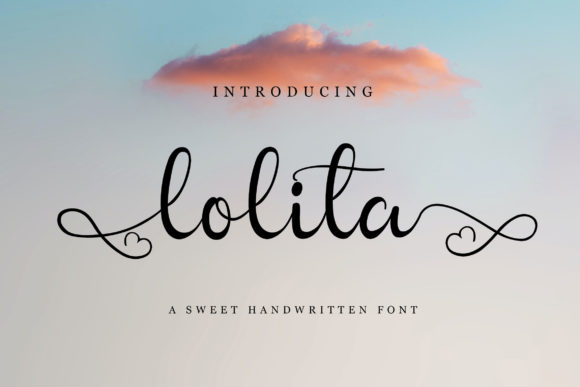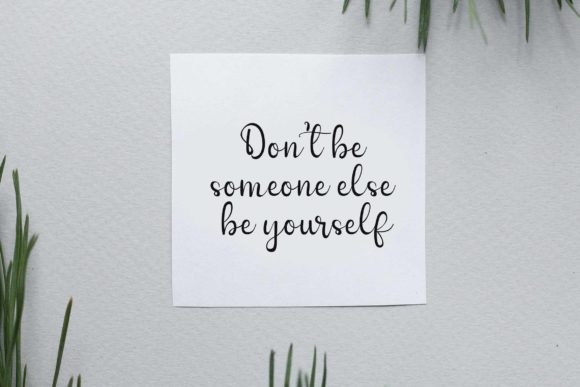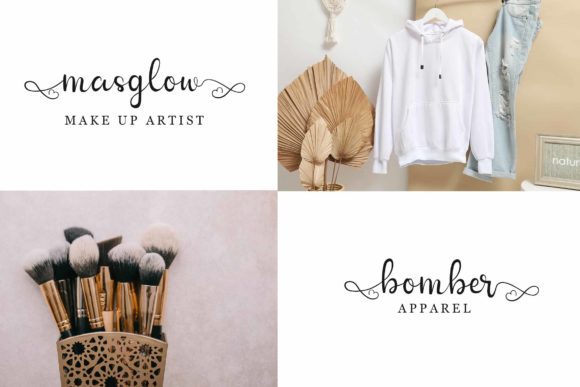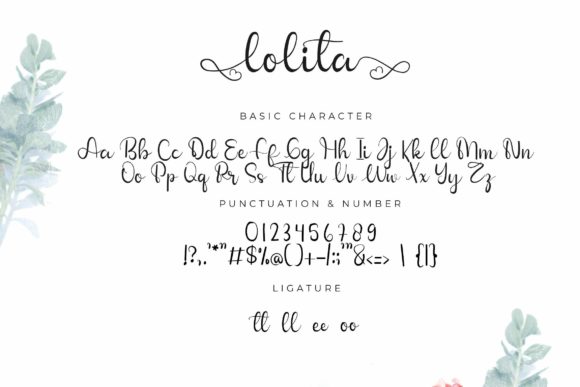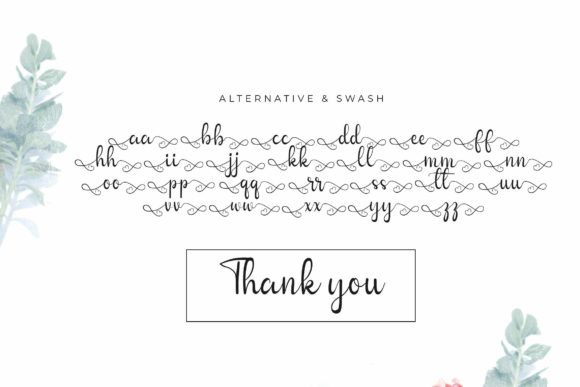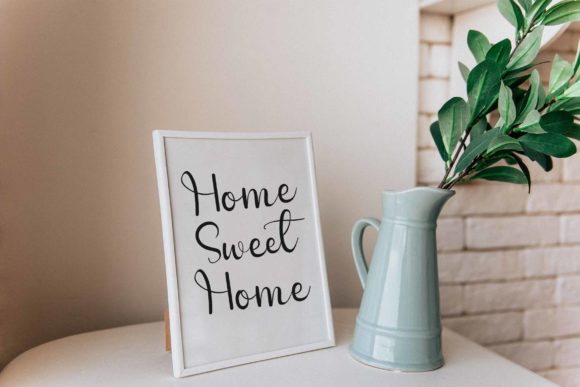
Lolita Font
About Lolita Font
Introducing “Lolita,” a lovely script font that showcases charming and playful characters, creating a whimsical dance along the baseline. Add this font to your most creative ideas, and observe how it makes them stand out with a touch of charm and personality. Notably, Lolita is PUA encoded, ensuring easy access to all glyphs and swashes for enhanced customization.
Lolita’s playful characters bring a delightful and lively quality to your text, making it a perfect addition to various creative projects. Whether applied to invitations, branding, social media posts, or any design endeavor, Lolita infuses a sense of whimsy that captivates the viewer’s attention.
Picture Lolita enhancing your invitations, adding a charming and playful vibe to your special events. Envision it becoming the signature element in your branding projects, injecting a touch of personality and creativity. The font’s PUA encoding feature opens up a world of possibilities, allowing you to effortlessly explore and incorporate unique glyphs and swashes into your designs.
In essence, Lolita is more than just a font; it’s a design companion that brings a playful and charming script to your projects. Its whimsical dance along the baseline is an invitation to infuse your creations with personality, making each design stand out with a touch of creativity. Choose Lolita to add a delightful and lively flair to your work, turning every project into a captivating expression of charm and playfulness.